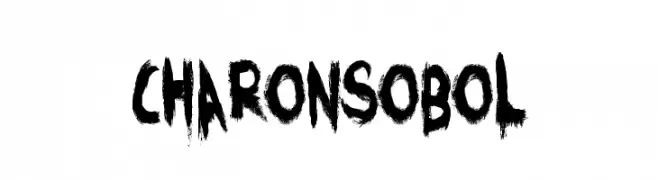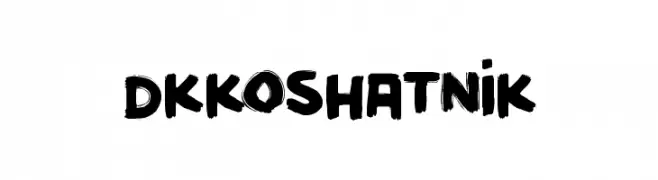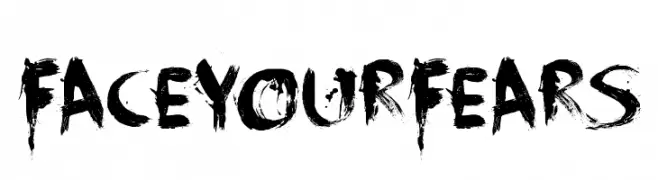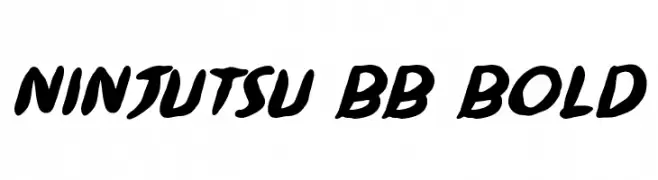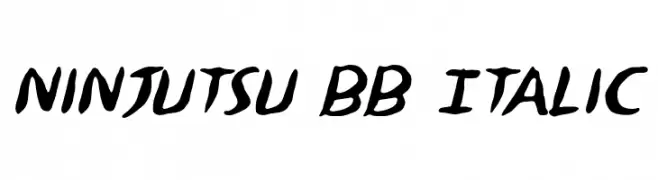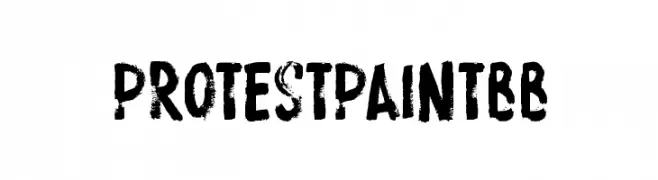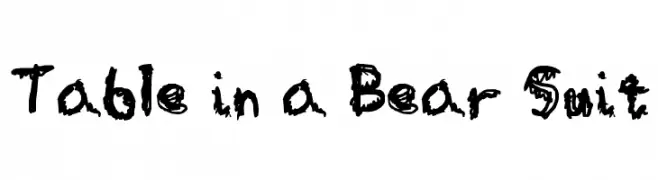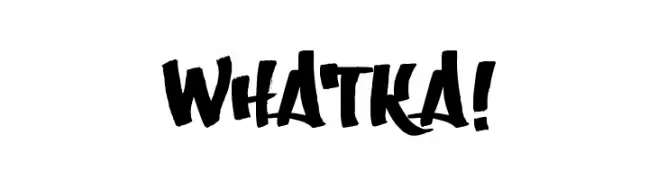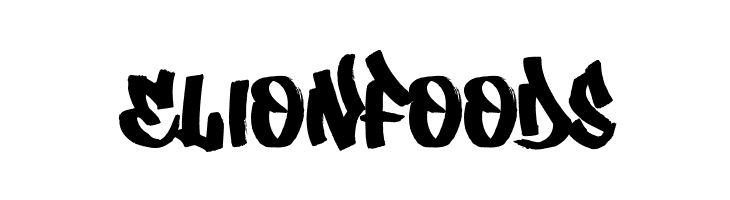
A bold, distressed font with a brush-like texture and chaotic aesthetic.
A bold, brush-style font with an expressive and dynamic appearance.
A bold, brush-textured font with a raw and energetic style.
A bold, brush-style font with dynamic, slanted characters and thick strokes.
A dynamic, italicized font with bold, brush-like strokes.
A bold, brush-style font with dynamic, hand-drawn characteristics.
A bold, hand-painted style font with textured, brush-like strokes.